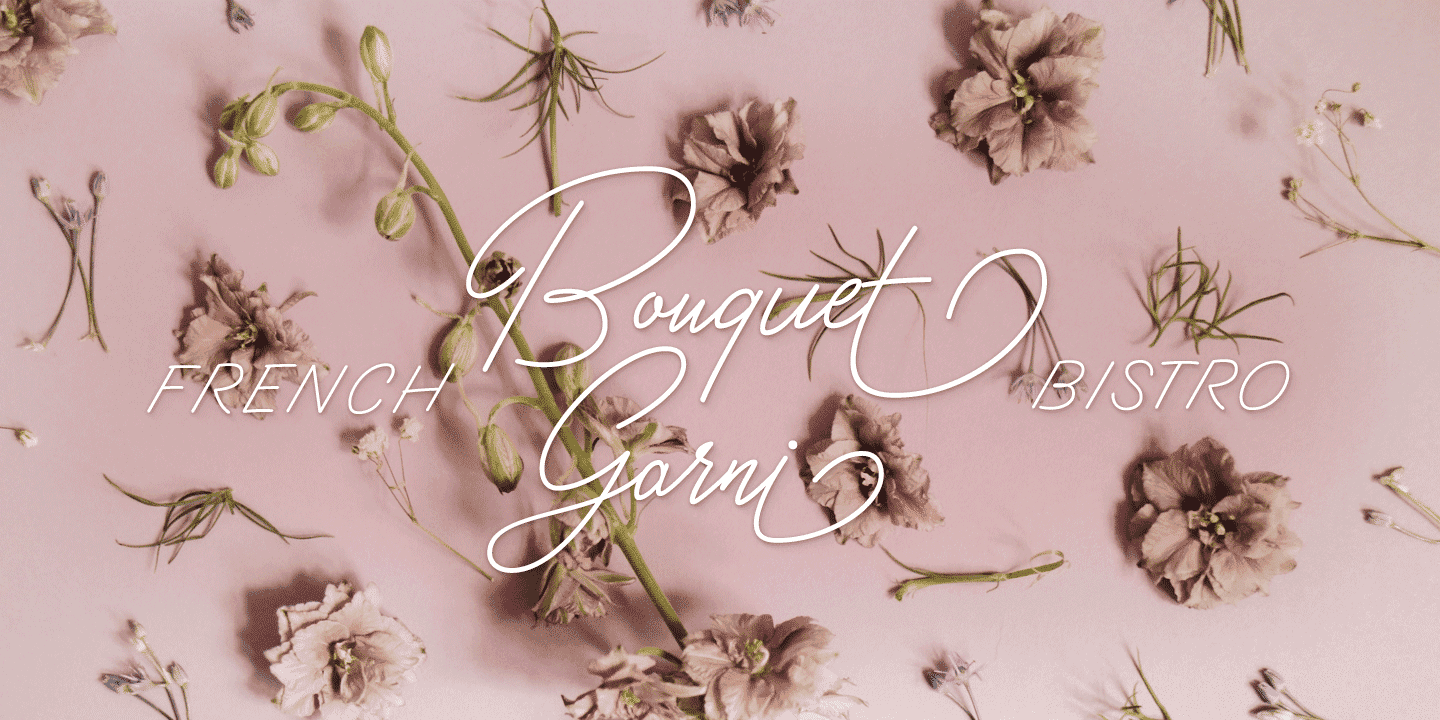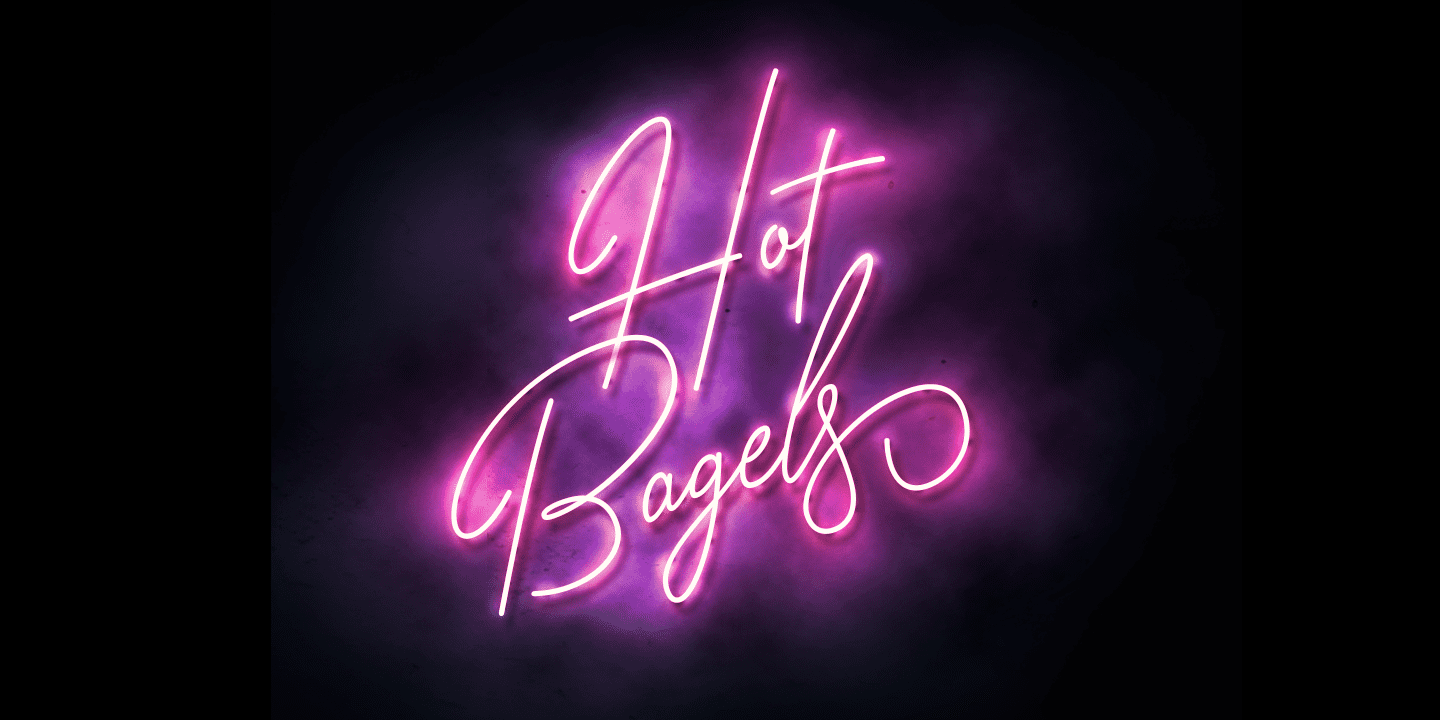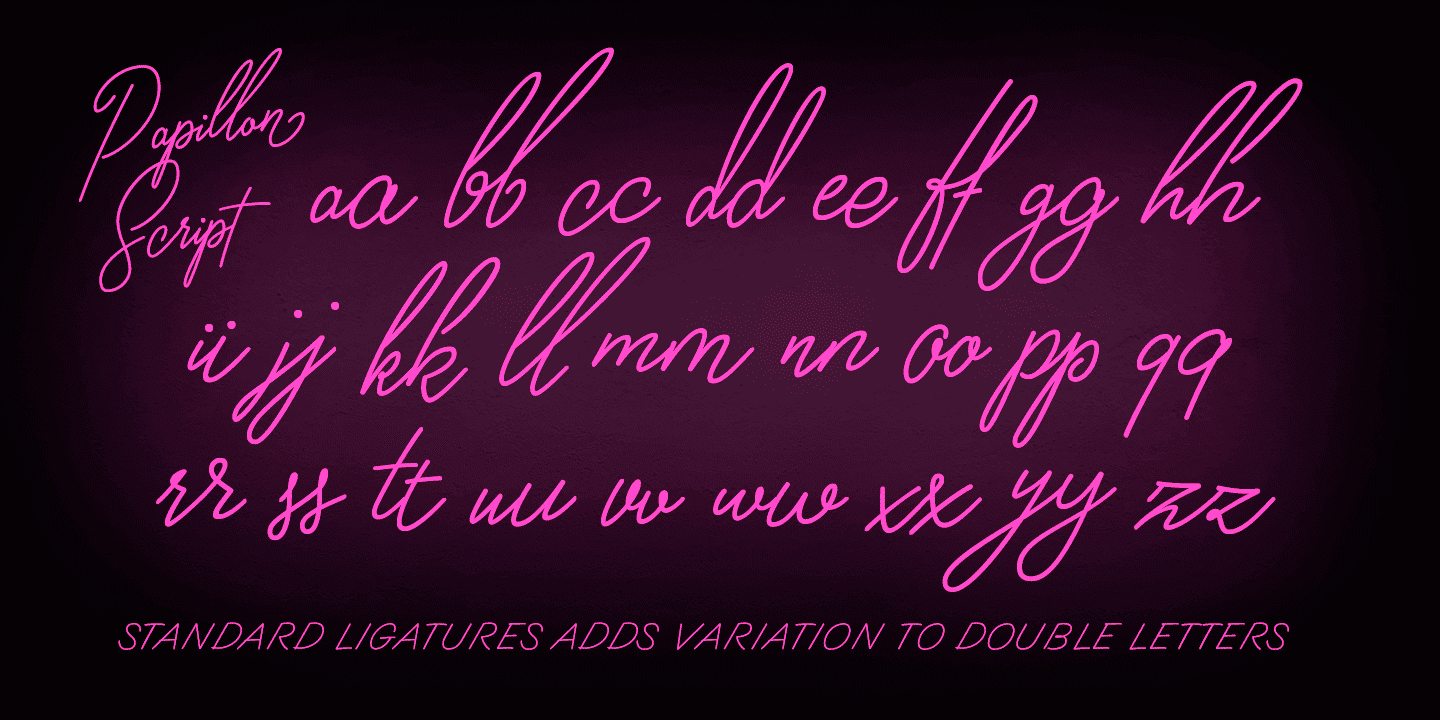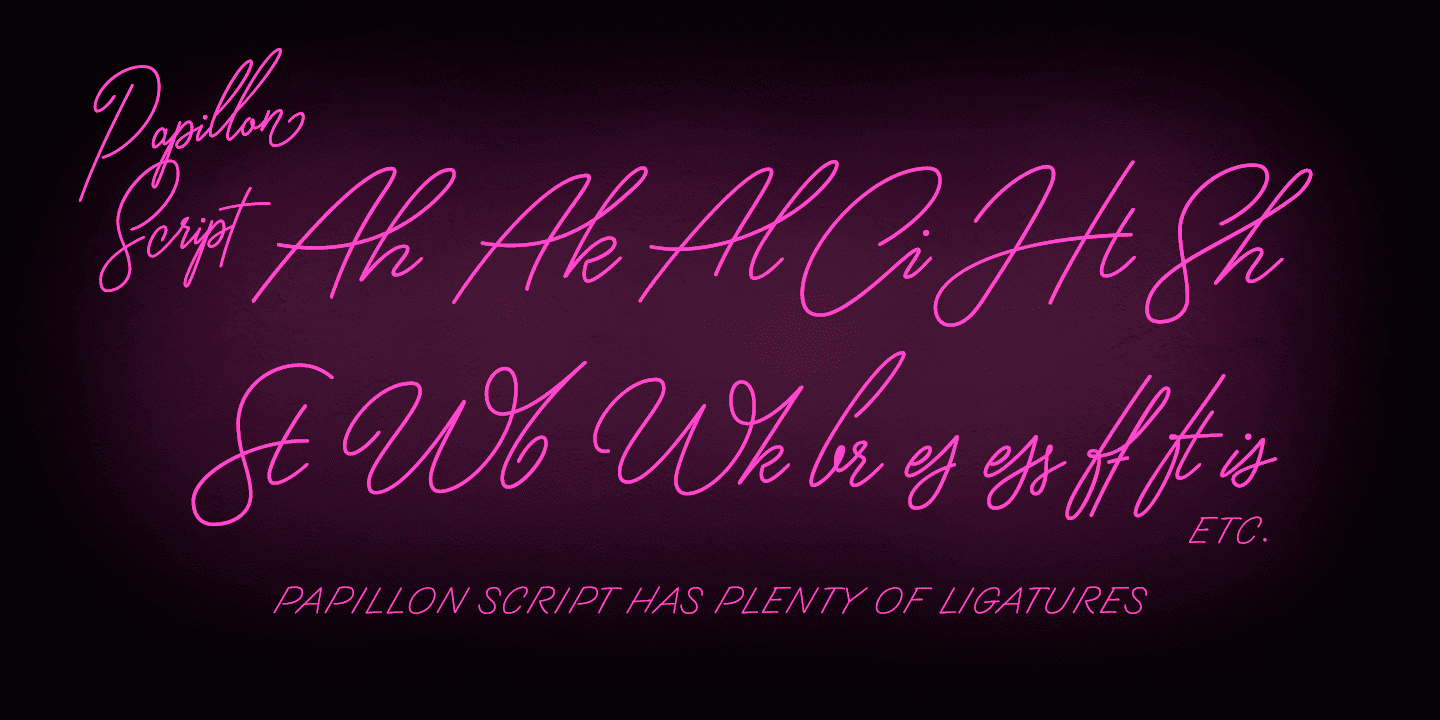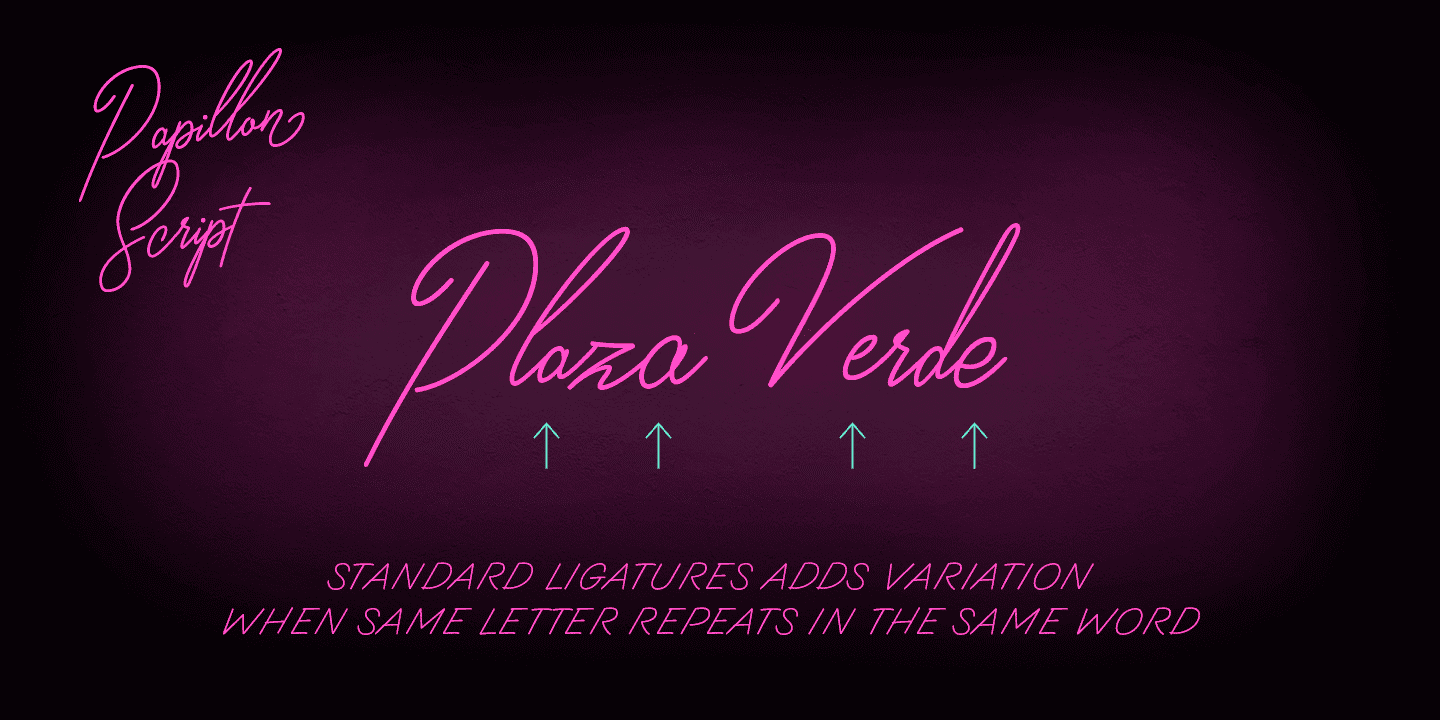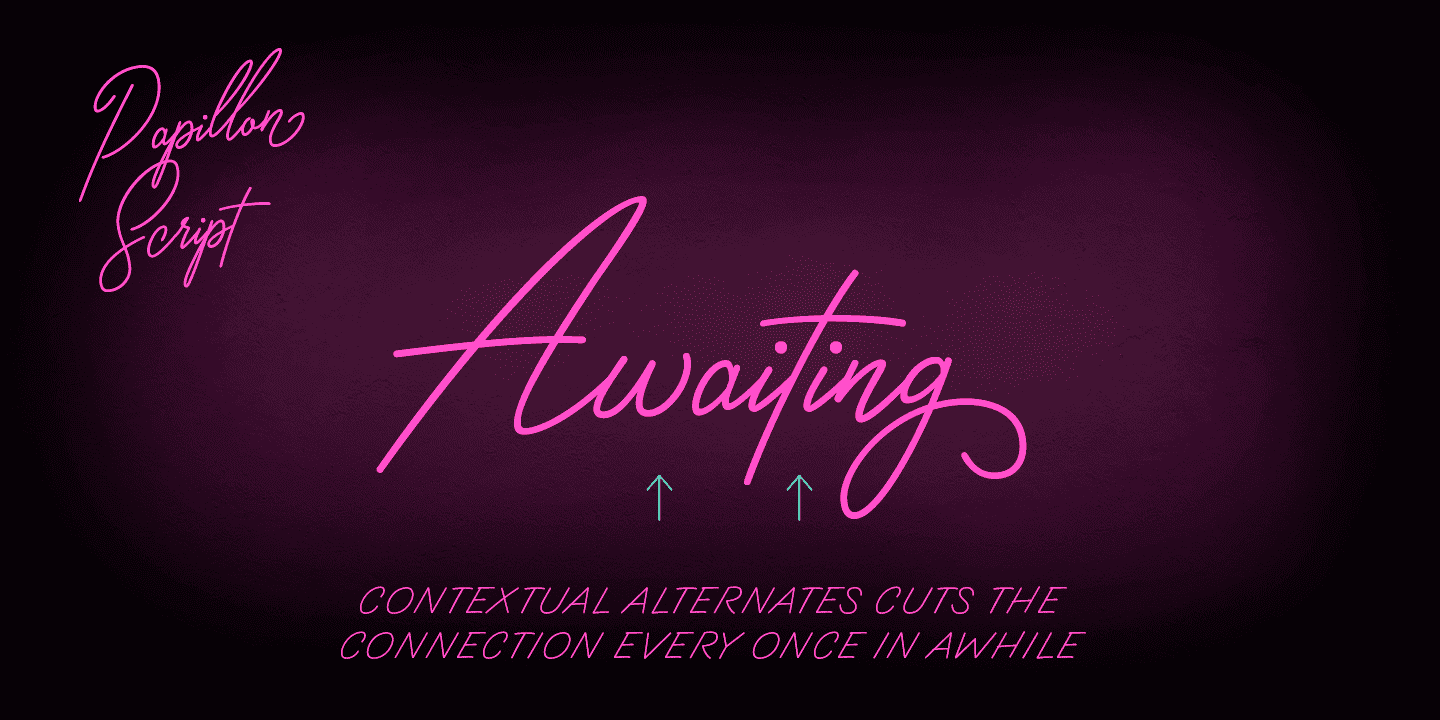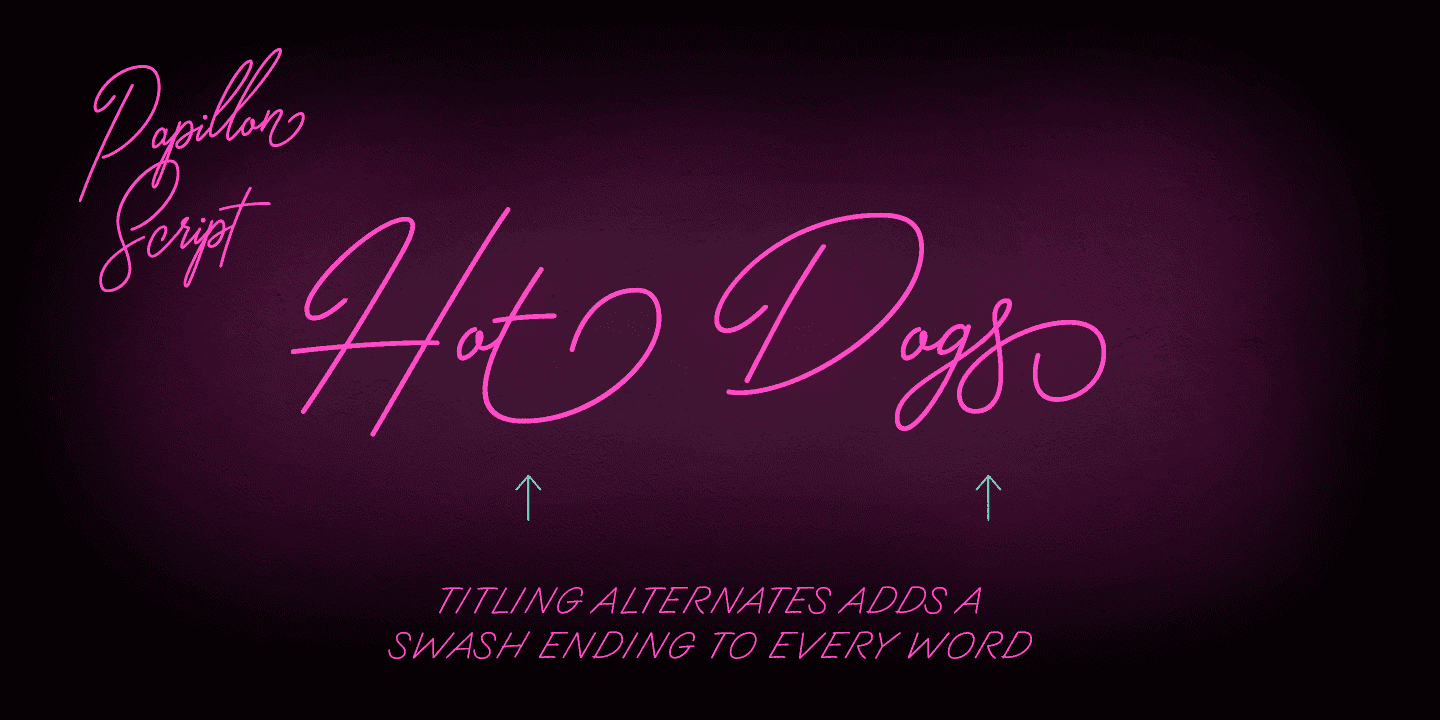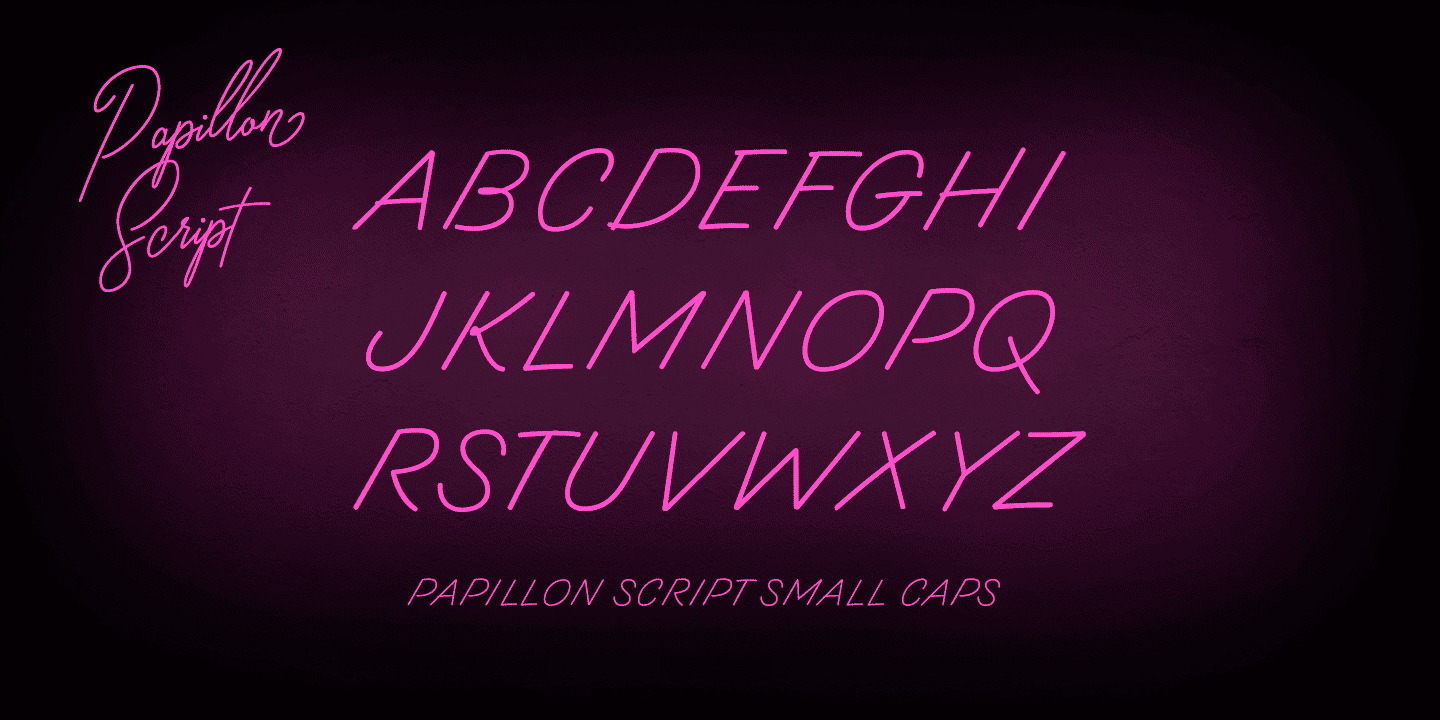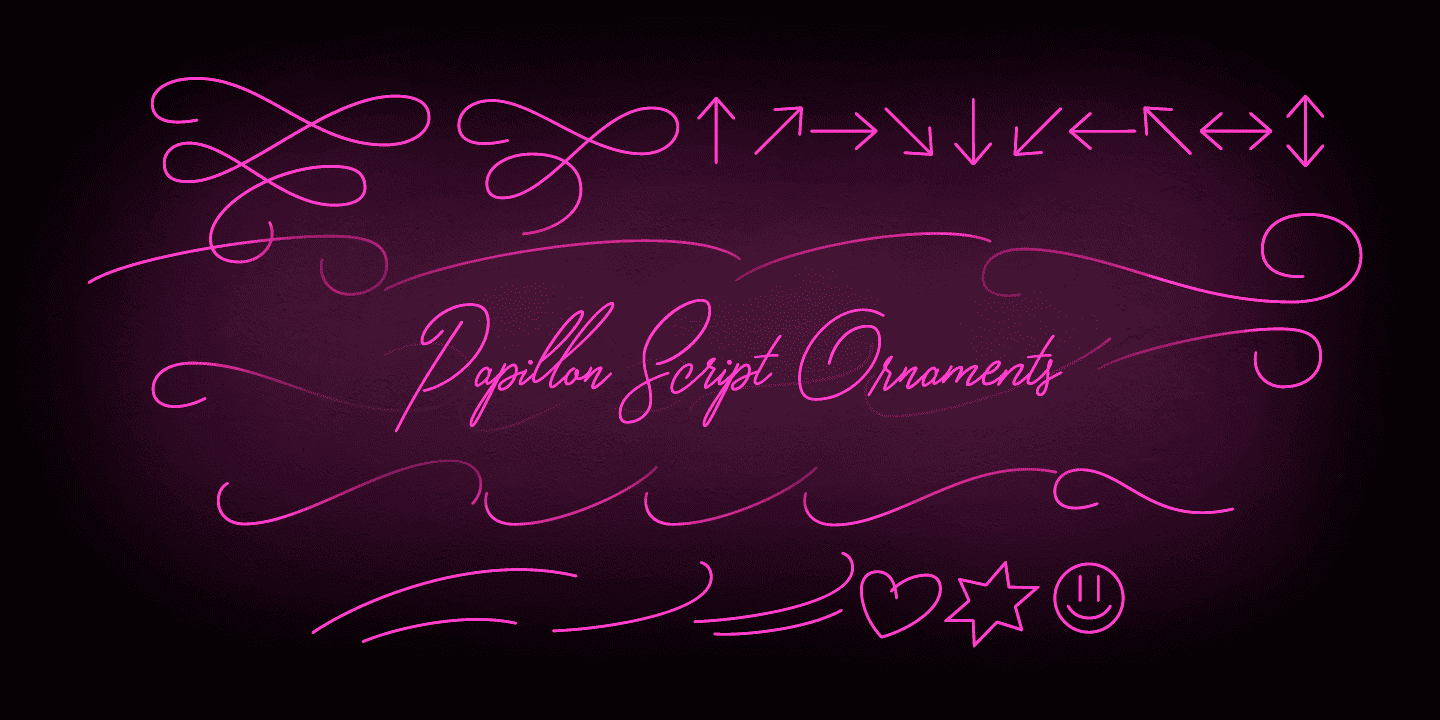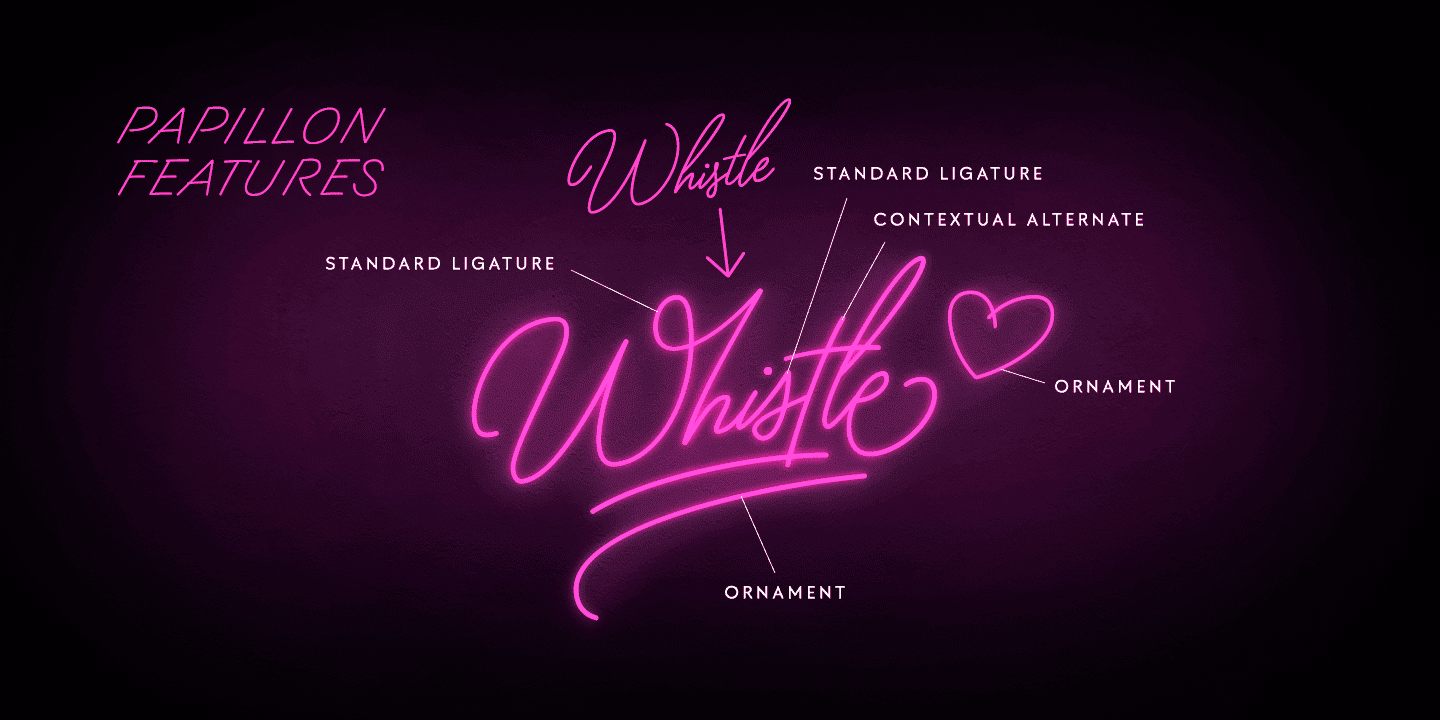
Papillon Script (1 font)
Papillon Script is equipped with following OpenType features:
• Standard Ligatures is automatically on and it adds variation and smoothness to typing. If a same letter repeats in the same word the latter will automatically change to an alternative version.
• Contextual Alternates is an optional feature that cuts the connection between letters every once in awhile. • Titling Alternates changes the last character in every word into an ending Swash alternative.
• From Stylistic Set 1 you’ll find a set of 34 ornaments, strokes and arrows.
• Small Caps turns lowercase into a set of legible capital letters.